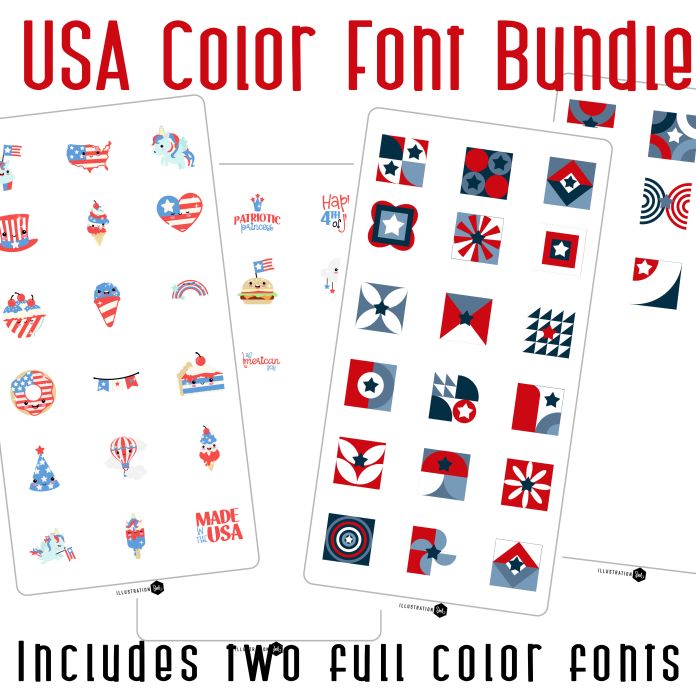
This bundle includes two full color dingbat fonts for one low price! With two dingbats you get 52 total images with 26 patriotic images and 26 patriotic quilt designs. Both color fonts are perfect for Independence day, parties, cards, crafts, gifts, decor, classrooms, planner stickers, scrap book pages and more!